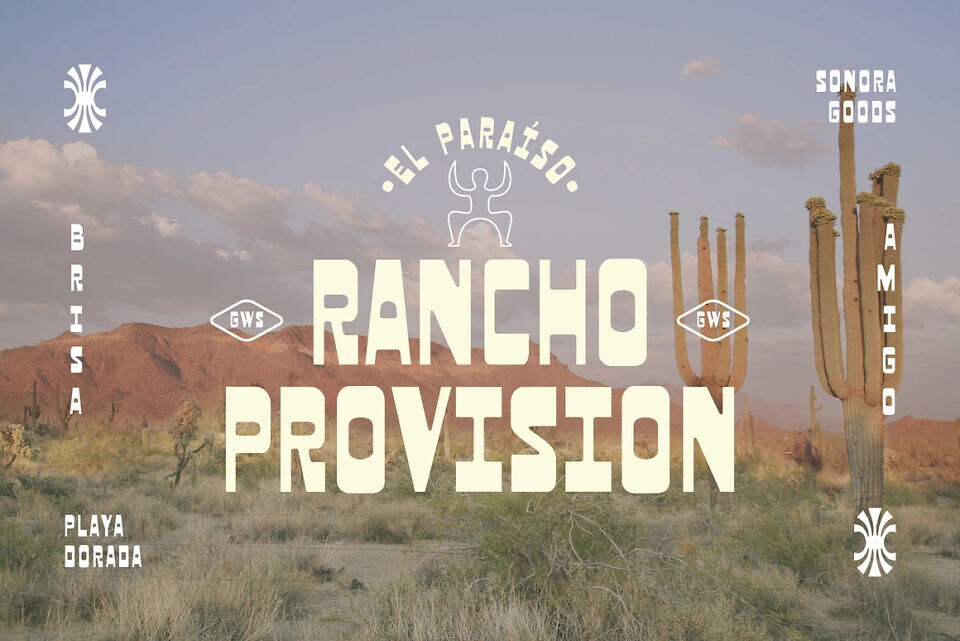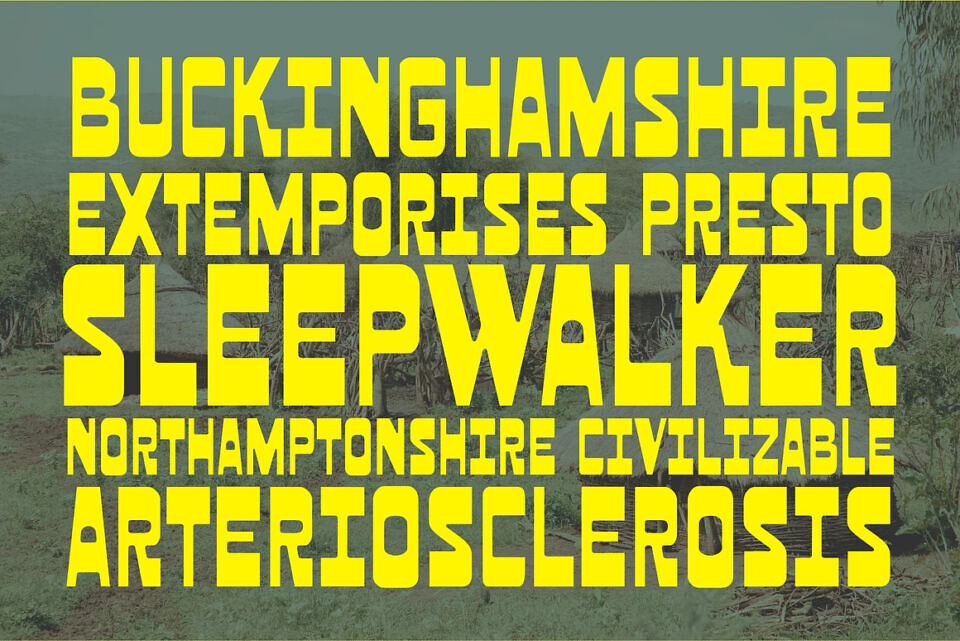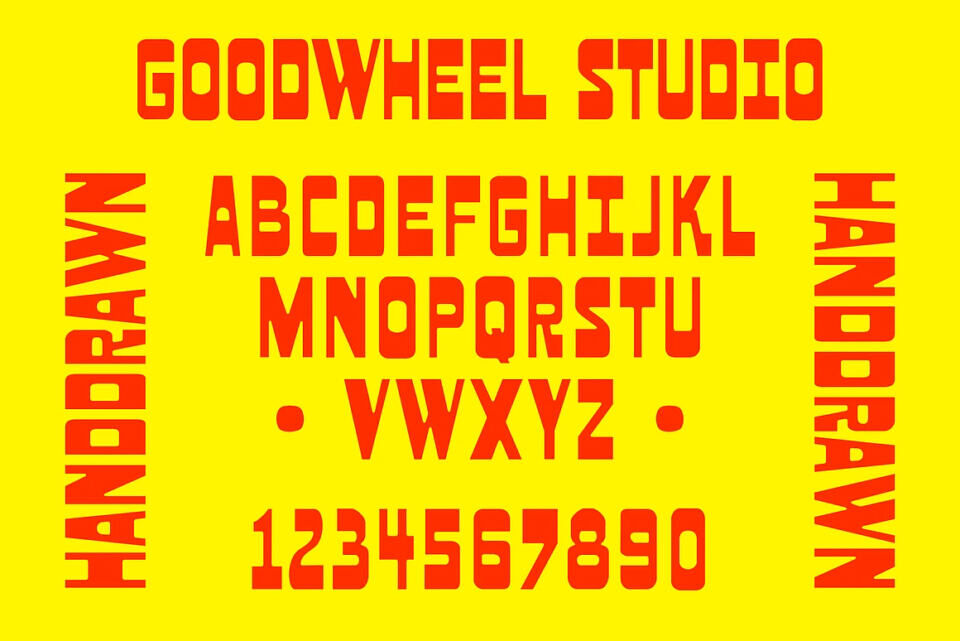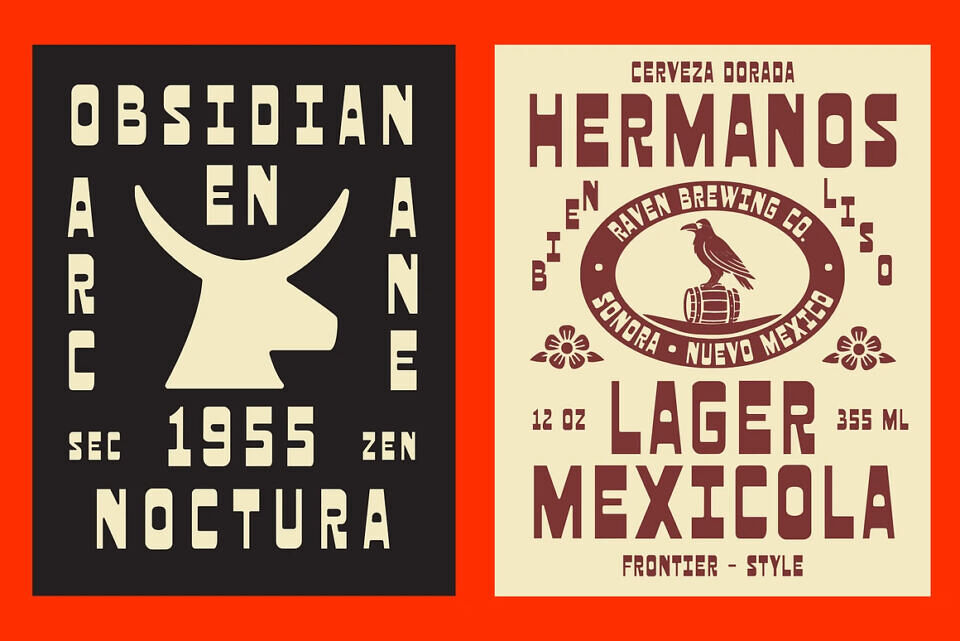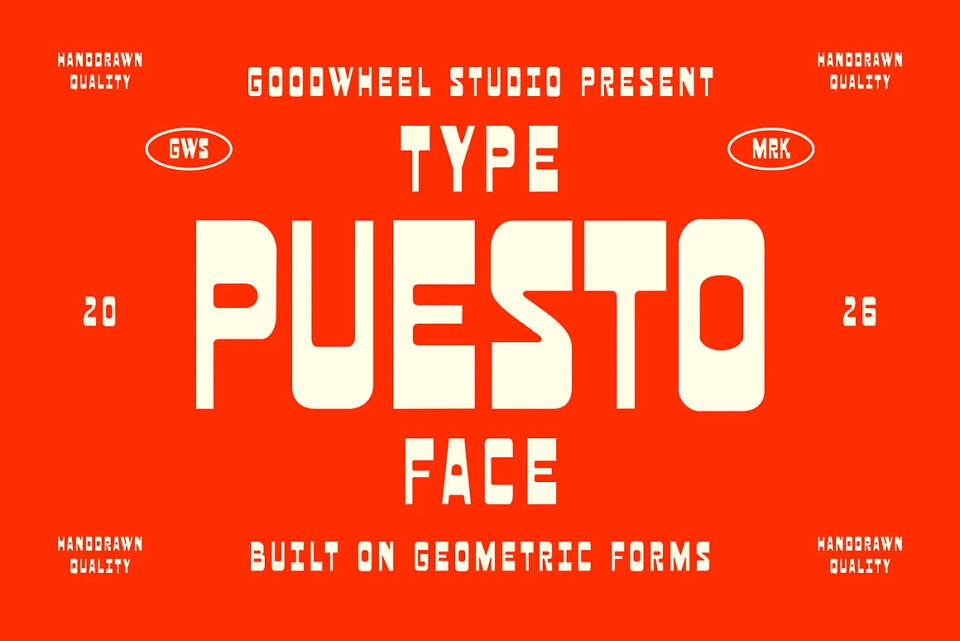
Puesto Font
Puesto is a distinctive display font that combines reverse-contrast letterforms with a warm folk-inspired aesthetic, creating a bold yet approachable visual personality. Its unique construction features heavier horizontal strokes and lighter verticals, giving the typeface a vintage character rooted in traditional woodtype printing, handcrafted signage, and classic beverage labels.
Inspired by folk art, regional craftsmanship, and heritage branding, Puesto delivers a strong sense of authenticity and cultural richness. The font’s geometric structure, compact proportions, and decorative details make it ideal for logos, packaging, posters, restaurant branding, brewery labels, and editorial projects.
Designed by: Ilham Herry